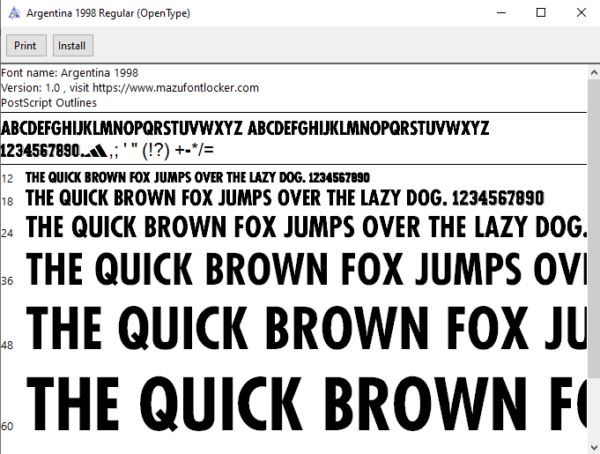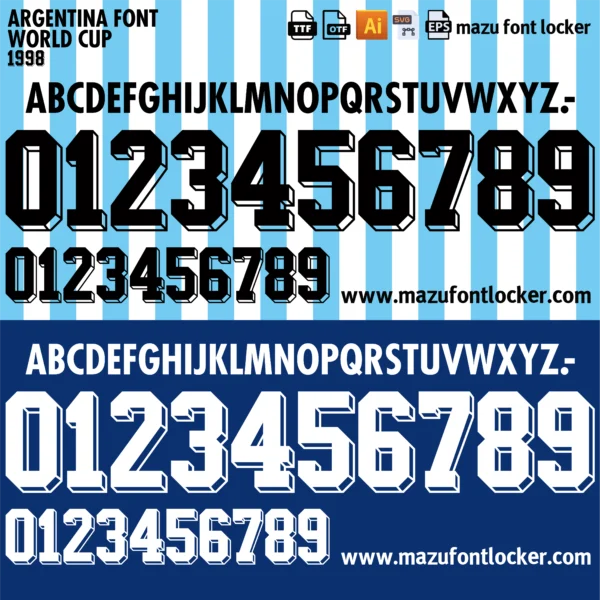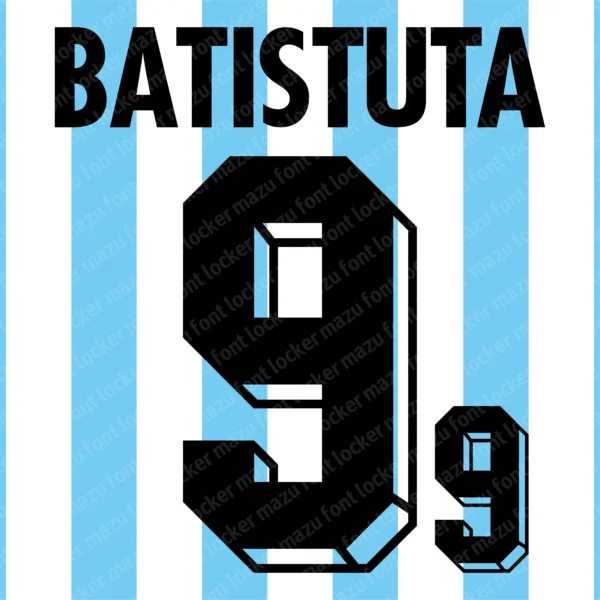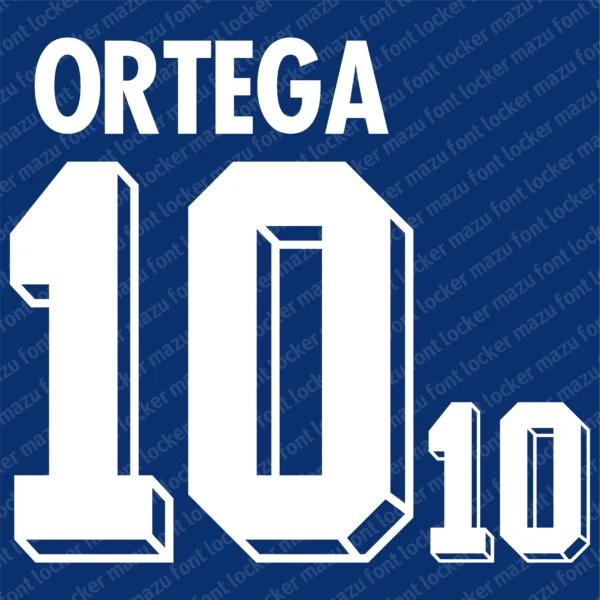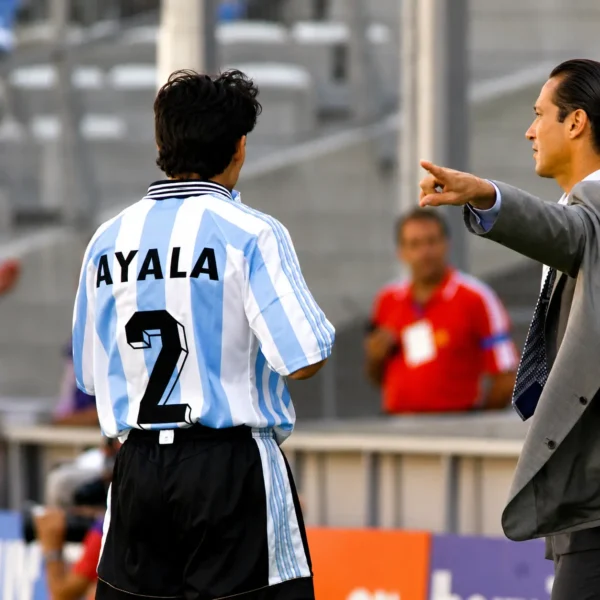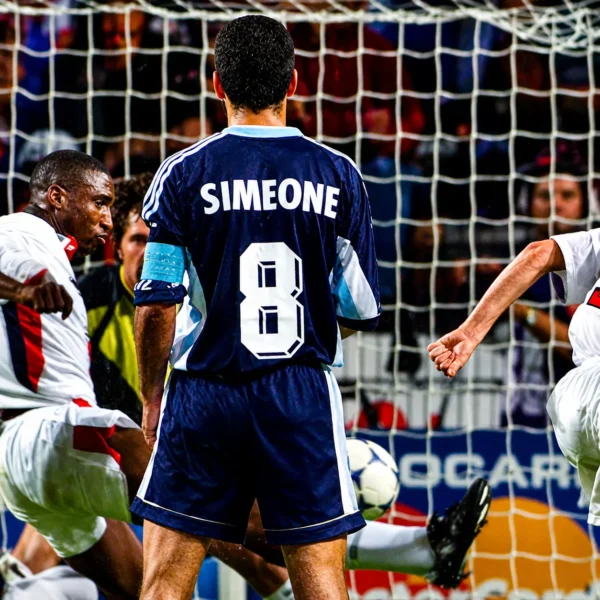
Argentina World Cup 1998 Font Vector – Epic Explosive Albiceleste Masterpiece
Download the Argentina World Cup 1998 Font Vector and powerfully recreate the bold, explosive, and majestic match-style lettering worn by the Argentine National Team during their unforgettable 1998 FIFA World Cup campaign. This font captures the intense and commanding typography that embodies the passionate sky-blue-and-white Albiceleste warrior spirit, delivering unmatched authenticity, dramatic flair, and legendary power for premium jersey mockups and football designs.
Argentina World Cup 1998 Font – Authentic Albiceleste Typeface
The Argentina World Cup 1998 Font is a premium typeface that accurately recreates the official match lettering worn by the Argentina national team during the 1998 FIFA World Cup in France. This high-quality font kit captures the bold, elegant, and iconic typography that represents the legendary Albiceleste campaign.
Designed for professional designers and passionate Argentina fans, the Argentina World Cup 1998 Font delivers perfect authenticity for creating retro jersey mockups, fan merchandise, matchday posters, social media graphics, and much more. It blends beautifully with the team’s iconic sky blue and white colors.
Why Choose Argentina World Cup 1998 Font
This font stands out because of its sharp details and strong historical identity. Every letter and number is crafted to match the exact style used on the players’ shirts during the 1998 World Cup. Whether you are making realistic retro shirt templates or nostalgic football content, the Argentina World Cup 1998 Font gives your designs that authentic Albiceleste look.
The letterforms in the Argentina World Cup 1998 Font are tall, bold, and highly readable. The strokes have a strong and controlled weight that looks powerful on the back of jerseys while maintaining excellent clarity and elegance.
The numerals use bold curves and firm edges, giving them a confident and premium appearance. This design ensures great legibility whether used in large print formats, digital mockups, or video content.
• Full uppercase A–Z and numbers 0–9 in authentic Argentina 1998 style
• Special Argentina AFA crest glyph for accurate shirt number detailing
• Create highly realistic Argentina 1998 national team jersey mockups with accurate lettering
• Design stunning retro World Cup posters, score graphics, and squad announcements
• Produce custom Albiceleste merchandise with a classic football aesthetic
Argentina in the 1998 World Cup